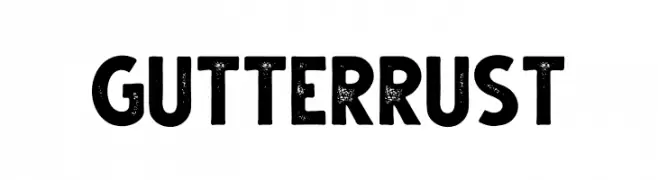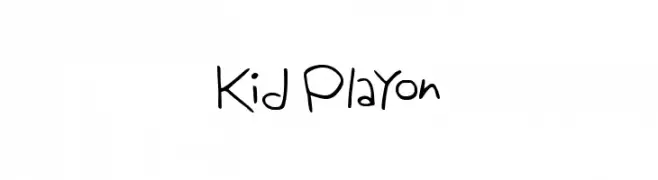
A bold, textured font with a distressed, vintage look.
A lively handwritten font with fluid, cursive strokes and a playful, elegant style.
A fluid, cursive font with a natural handwriting style.
A bold, geometric font inspired by the ancient Younger Futhark runes.
A bold, distressed font with a rugged, vintage look.
A medium-weight, handwritten font with a tall, slender, and charming style.
A bold, distressed font with a vintage, textured appearance.
A flowing, handwritten style with elongated, slanted letters and thin strokes.
A bold, textured font with a hand-drawn, vintage appearance.
A playful, hand-drawn font with a whimsical, childlike style.